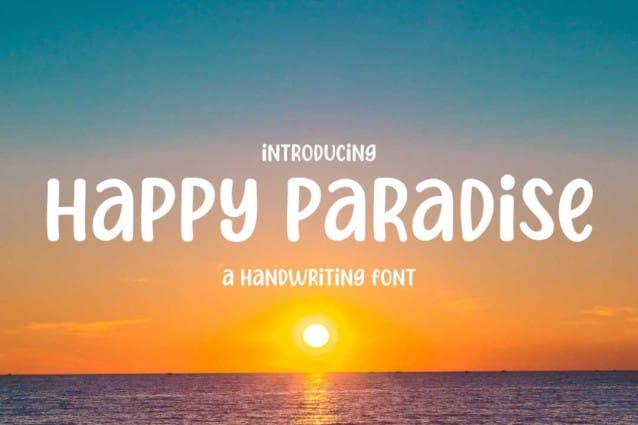
Happy Paradise Font
Happy Paradise Font is a sweet and friendly handwritten display font. Cute and fun, this font is ideal for writing wedding invitations, cards, or any other design that might need a fun touch!